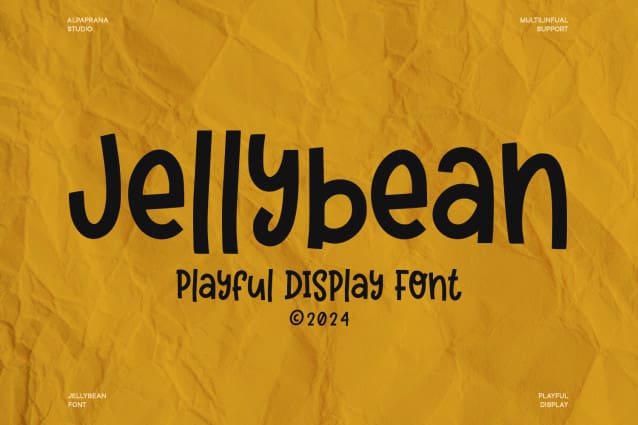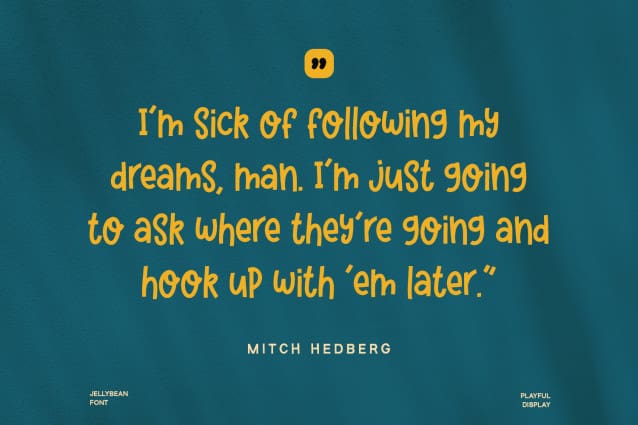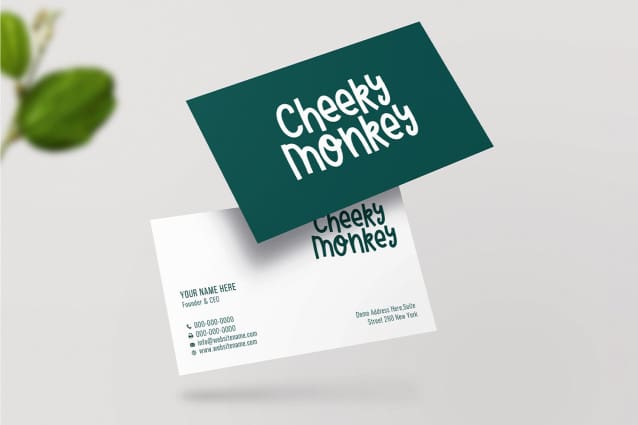
Jellybean Display Font
Jellybean Display Font is a display font with modern and playful feels. It will be perfectly used for Branding, Logo Design, Lettering, Logotype, Clothing, Poster, magazine, packaging, posters, shopping bags, t-shirts, book covers, photography, special events and other design project.